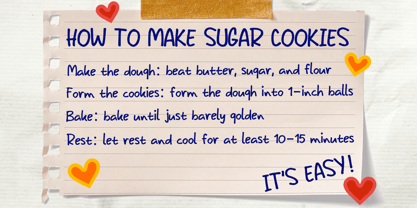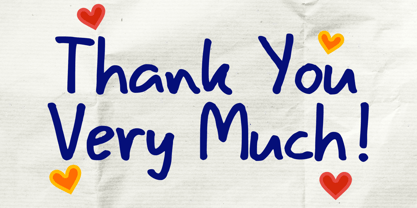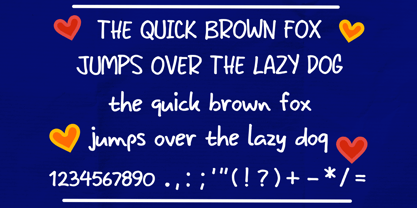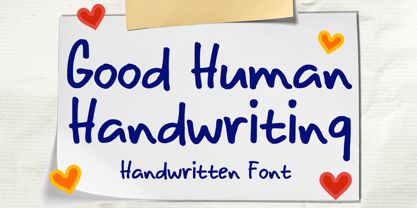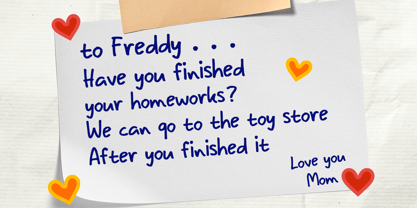
Good Human Handwriting
by Mvmet
The Good Human Handwriting Font Family was designed by Gabriel Valentinus and published by Mvmet. Good Human Handwriting contains 1 styles. More about this family
Experience the delight of playful penmanship with Good Human Handwriting. This whimsical font captures the appealing essence of casual writing, offering versatile usability for a wide range of creative endeavors. Ideal for invigorating your design projects, it imparts an uplifting vibe that enhances them to their utmost potential. Breathe new life into sticker designs, t-shirt graphics, vibrant logos, captivating book covers, comic strip illustrations, or even your everyday typing. With Good Human Handwriting, you will add an irresistibly cool and distinctive touch, transforming your creations into memorable masterpieces. This font family features a variety of weights and styles, making it perfect for branding, web design, and editorial projects. Its OpenType features enhance functionality, ensuring your designs stand out with a unique flair.
Designers: Gabriel Valentinus
Foundry: Mvmet